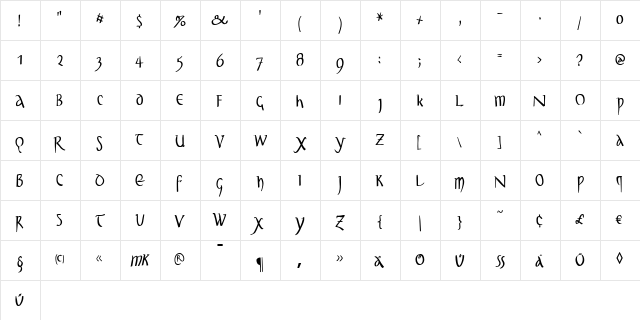
UnclassicQuill-Condensed Regular
Design Context for UnclassicQuill-Condensed Typeface
UnclassicQuill-Condensed wears its vintage influences proudly, with letterforms that recall mid-century signage, classic packaging, and nostalgia-driven design.
Font Pairing: Combine UnclassicQuill-Condensed with a simple slab or neutral sans — period-accurate companions reinforce the vintage feel without competing for attention.
Pro Tip: Use UnclassicQuill-Condensed for headlines and pull quotes rather than body copy — its personality is best appreciated in short, focused bursts.